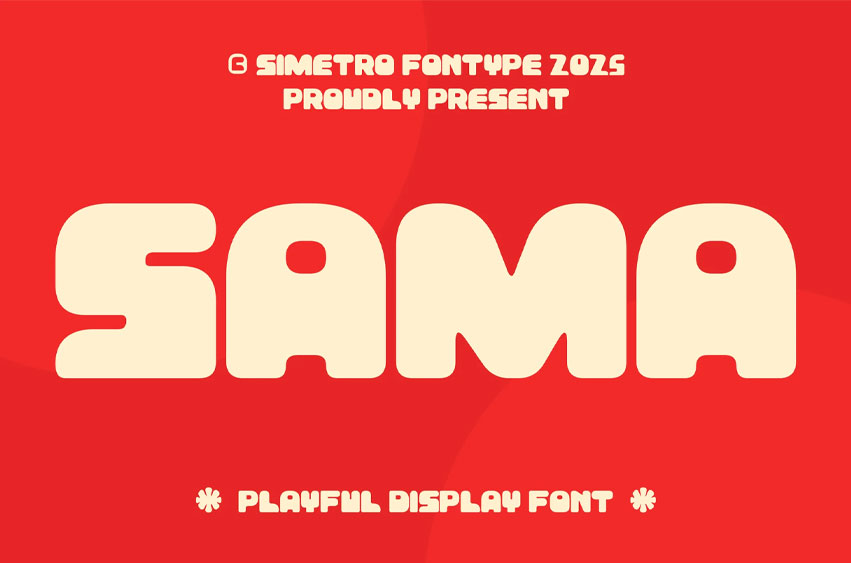
Sama Font is a playful display font with a bold, rounded, and cheerful style. Inspired by retro 70s vibes with a modern twist, this font brings a sense of fun, joy, and friendliness into your designs. Perfect for posters, logos, packaging, headlines, merchandise, creative branding, and social media design, SAMA delivers a strong yet approachable personality that instantly grabs attention.
If you’re looking for a typeface that spreads positive energy and leaves a unique, memorable impression, SAMA is the perfect choice to brighten up your typography collection.